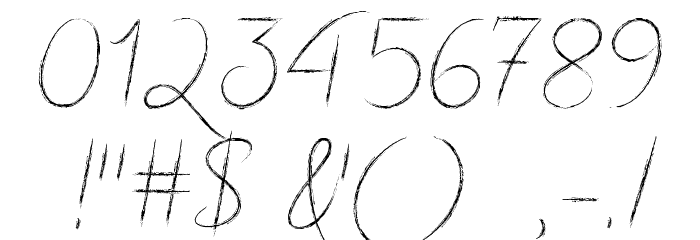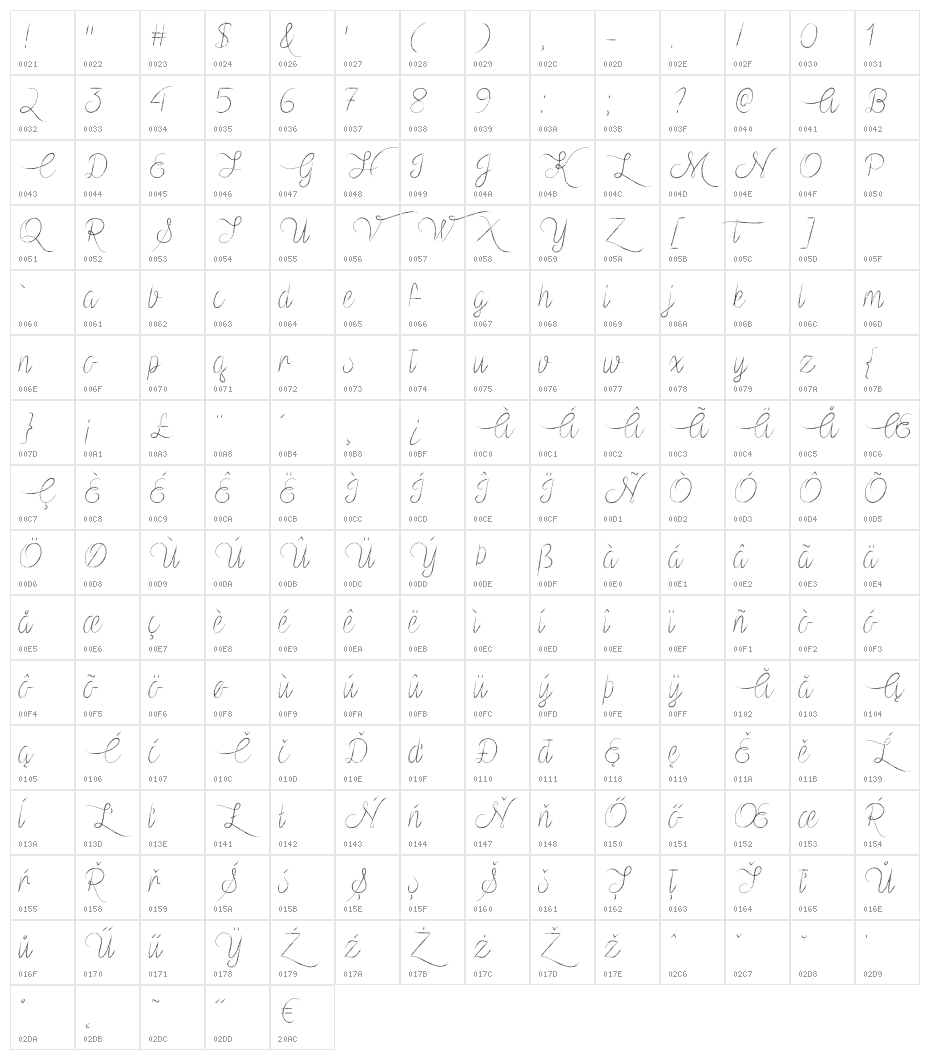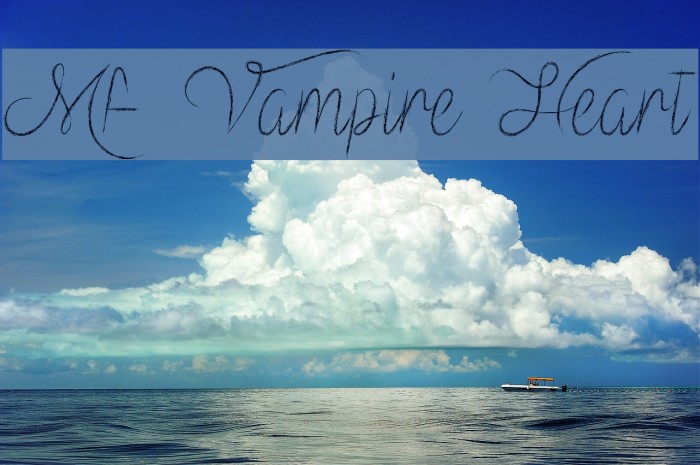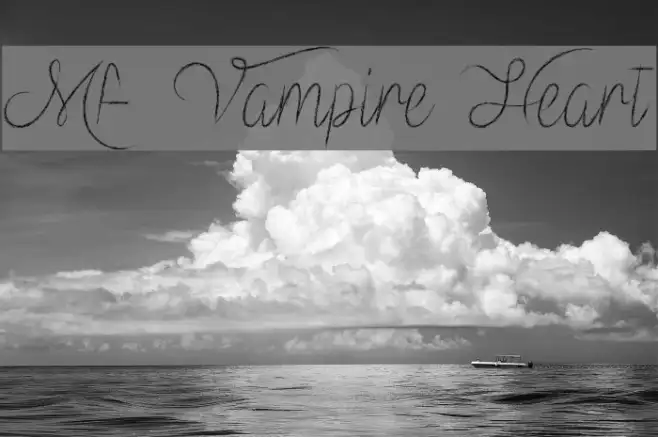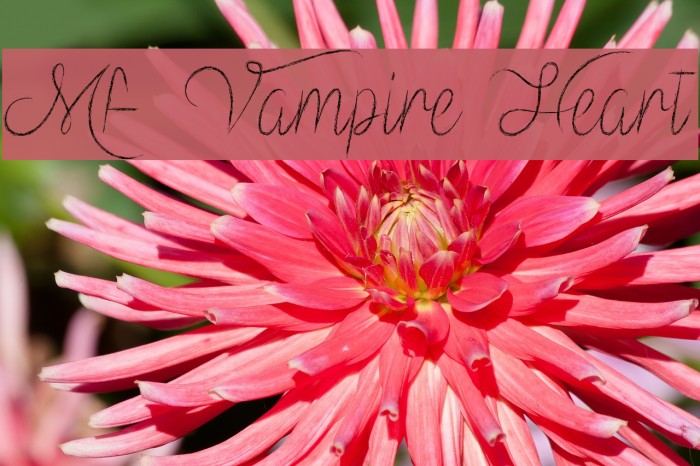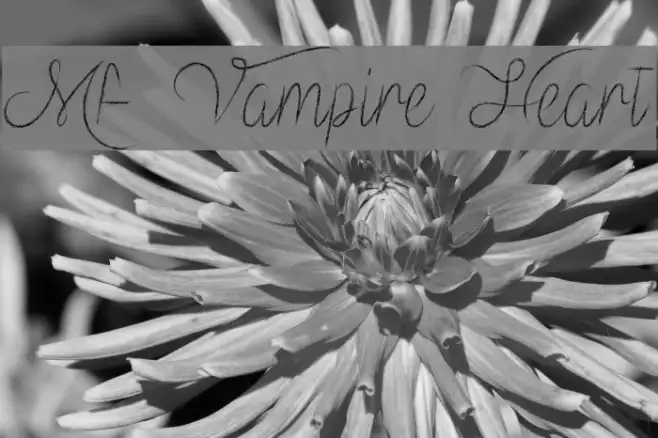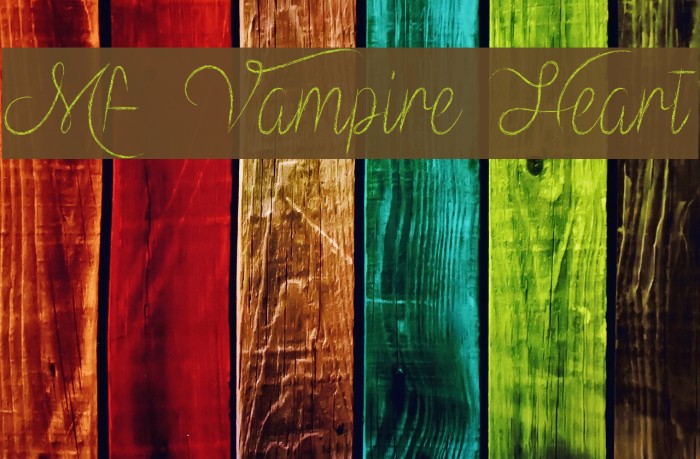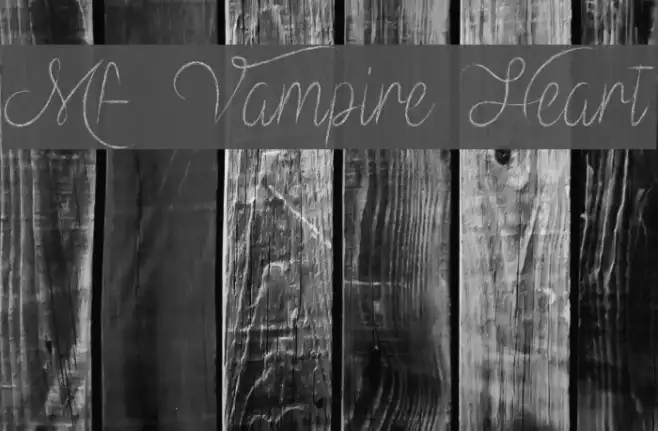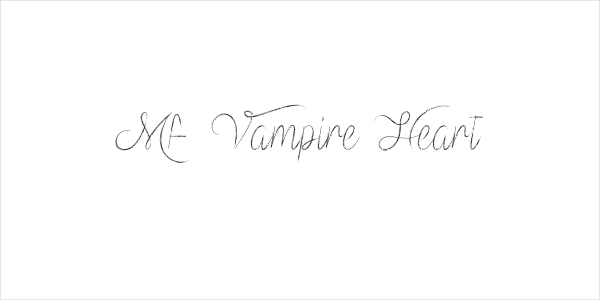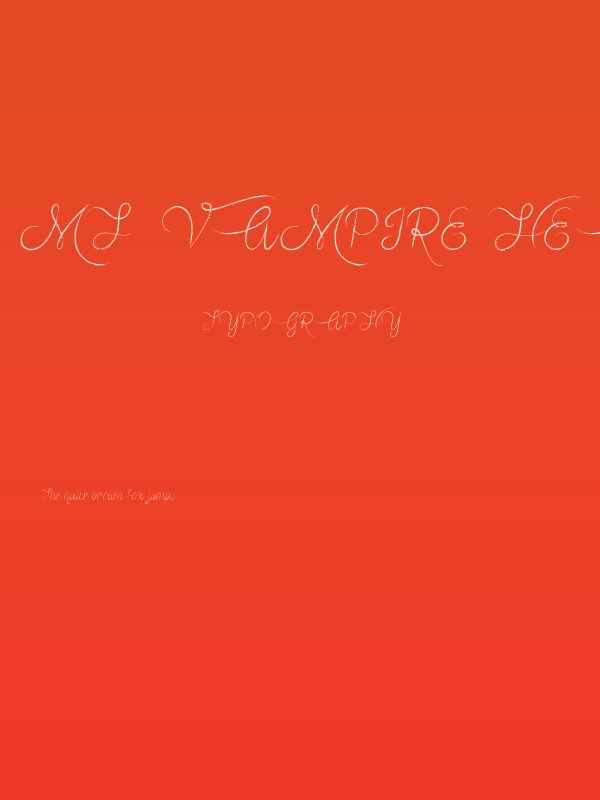
Mf Vampire Heart Font
Mf Vampire Heart Description
This font exudes an elegant and whimsical charm, characterized by its flowing, cursive script. The letters are gracefully connected, with delicate loops and swirls that add a touch of sophistication. The strokes are thin and consistent, creating a light and airy feel. The uppercase letters are slightly more ornate, with extended flourishes that enhance their decorative appeal. The lowercase letters maintain a cohesive style, ensuring readability while retaining their artistic flair. Numbers and special characters are designed to match the overall aesthetic, making this font versatile for various uses.